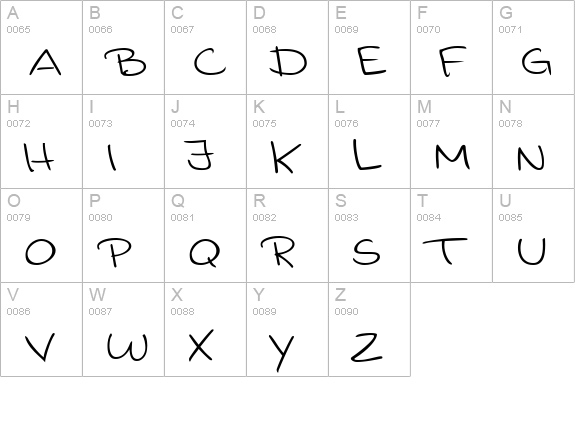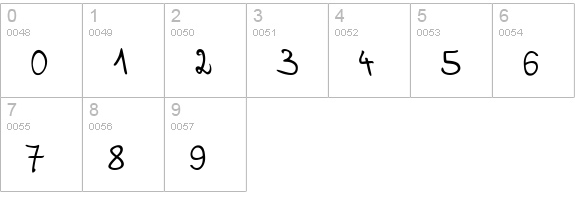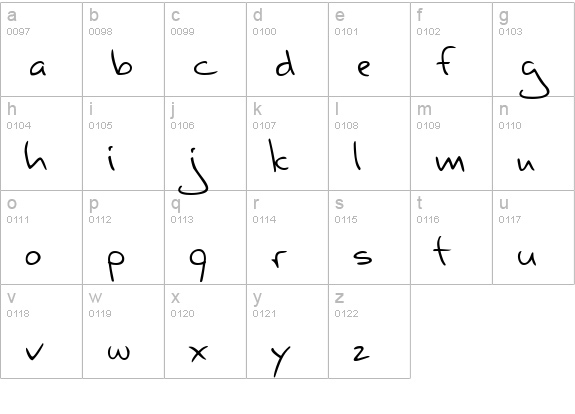
Valerian Handwriting font is a charming and elegant script typeface that exudes a sense of grace and sophistication. Its flowing strokes and delicate curves give it a timeless appeal, making it perfect for a wide range of design projects. Whether you're creating invitations, greeting cards, or branding materials, Valerian Handwriting adds a touch of class and beauty to your work. What makes Valerian Handwriting even more special is that it is available for free download at FontsMarket.com. This means you can easily access this stunning font and use it in your projects without any cost. Embrace the beauty of Valerian Handwriting and elevate your designs with its unique charm and style. Download it today and see how this exquisite font can enhance your creative endeavors.